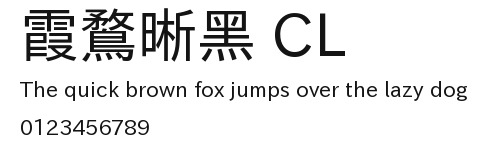
霞鶩晰黑 CL Preview
• Font Name: 霞鶩晰黑 CL
• Font ID: LXGW XiHei CL:Version 0.503
• Full Font Name: 霞鶩晰黑 CL
• Version: Version 0.503;July 20, 2025
• PostScript Name: LXGWXiHeiCL
• Character Count: 22824
About 霞鶩晰黑 CL.ttf
霞鶩晰黑 CL.ttf is a modern, elegant sans-serif font designed for ultimate readability and visual harmony. Perfect for branding, headlines, web design, and print materials.